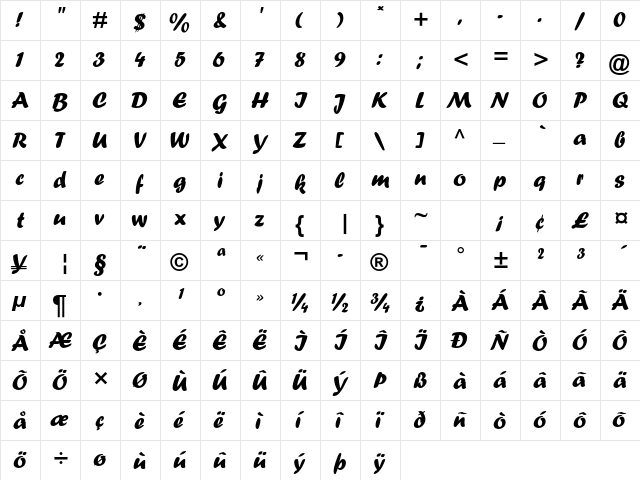
Forte MT Std Regular
| Foundry | Agfa Monotype Corporation |
Design Context for Forte MT Std Typeface
Forte MT Std is a composed and adaptable typeface that performs quietly and consistently across a wide range of design contexts.